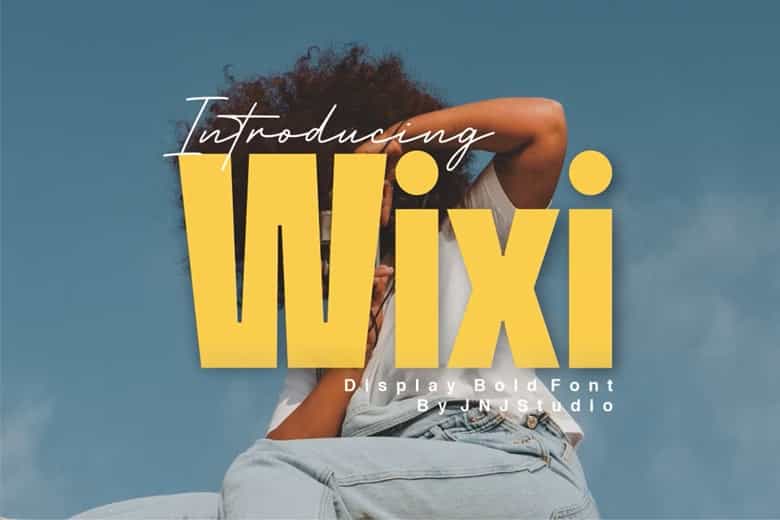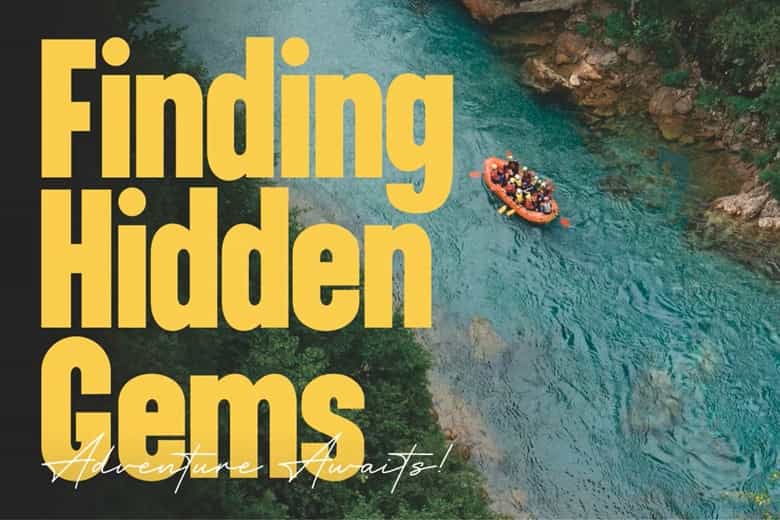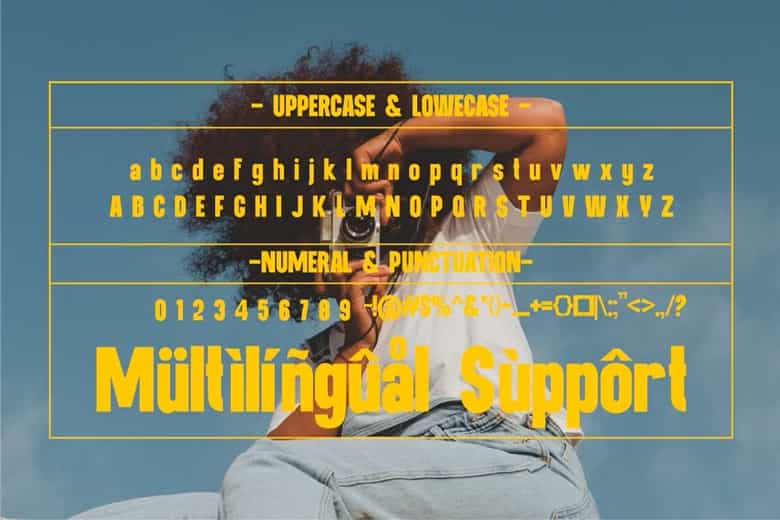
Discover Wixi Font, part of the Display collection—a versatile and unique font perfect for adding a personal touch to your projects. Download it for free and enjoy crafting designs with style, from invitations to social media posts. This font is available exclusively for personal use, giving you the freedom to create without limits. Unlock your creativity with Wixi Font today!
Wixi Display Font is intended to be bold and grab attention. Wixi for its thick strokes, modern curves, and a playful edge that brings energy and confidence to every design. This font is ideal for headlines, posters, branding, digital media, where you need impact, load, strong personality, and identity.